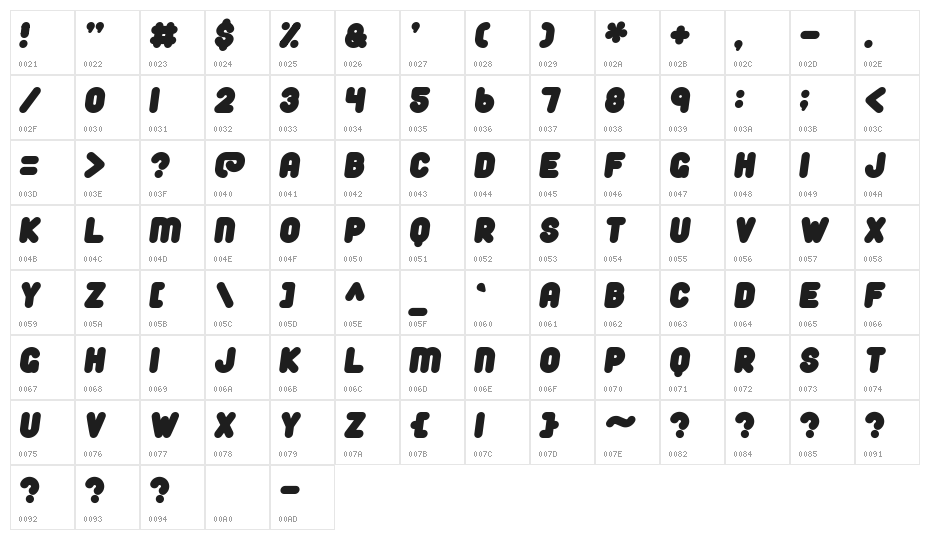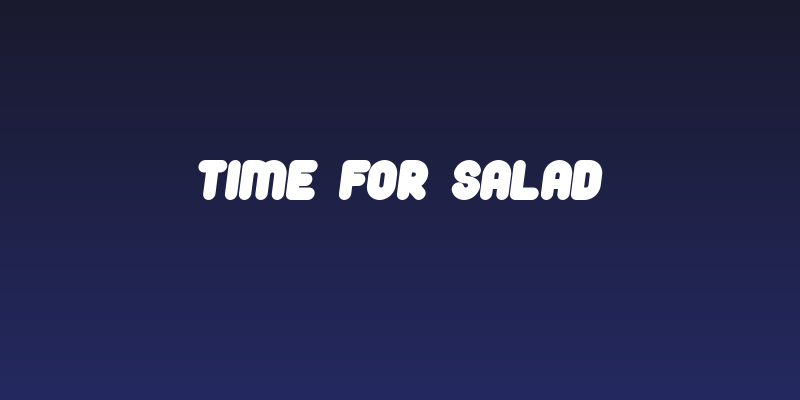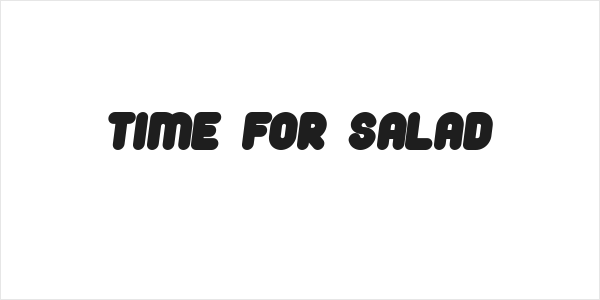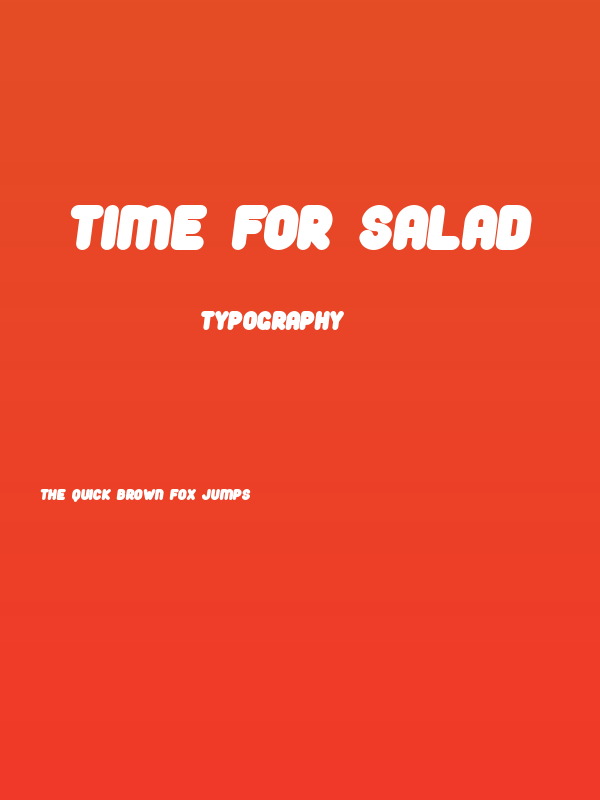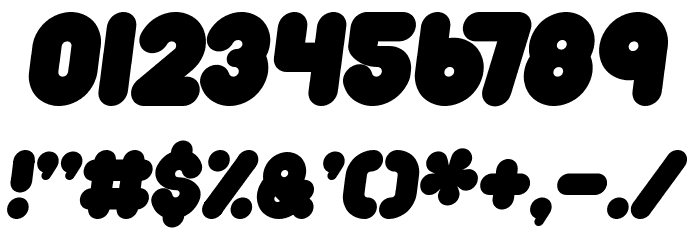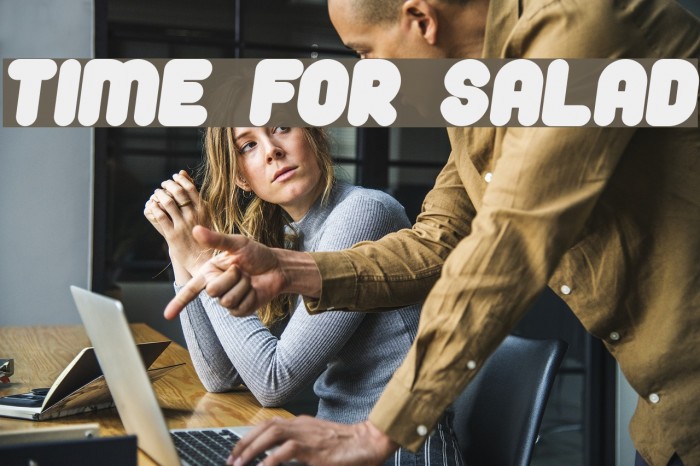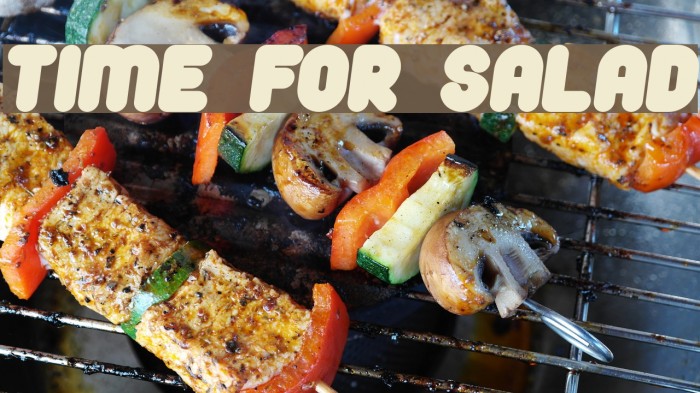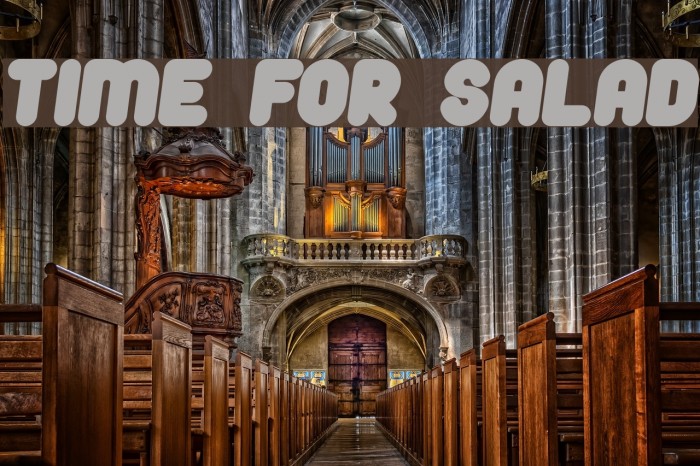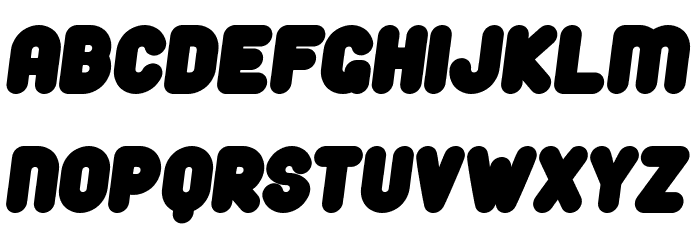
Time For Salad Font
Time For Salad Description
This font features bold, rounded characters with a playful and bubbly appearance. The letters are uniformly thick, giving a sense of weight and presence. The rounded edges and lack of sharp angles contribute to a friendly and approachable feel. The characters are closely spaced, enhancing the compact and cohesive look. The font's style is consistent across uppercase, lowercase, numbers, and special characters, maintaining a uniform aesthetic. Its boldness and unique style make it suitable for eye-catching designs.
| Proposed Projects | Ideal for children's books, playful branding, posters, and social media graphics. |